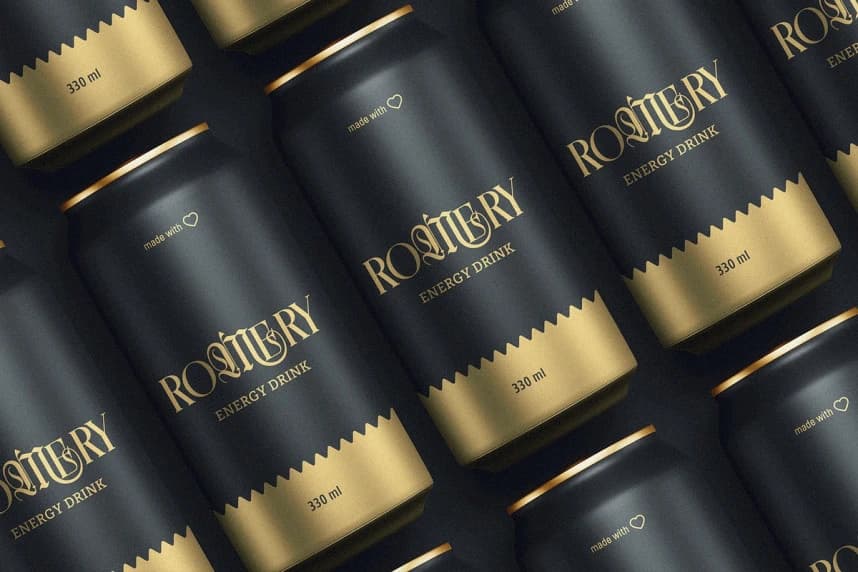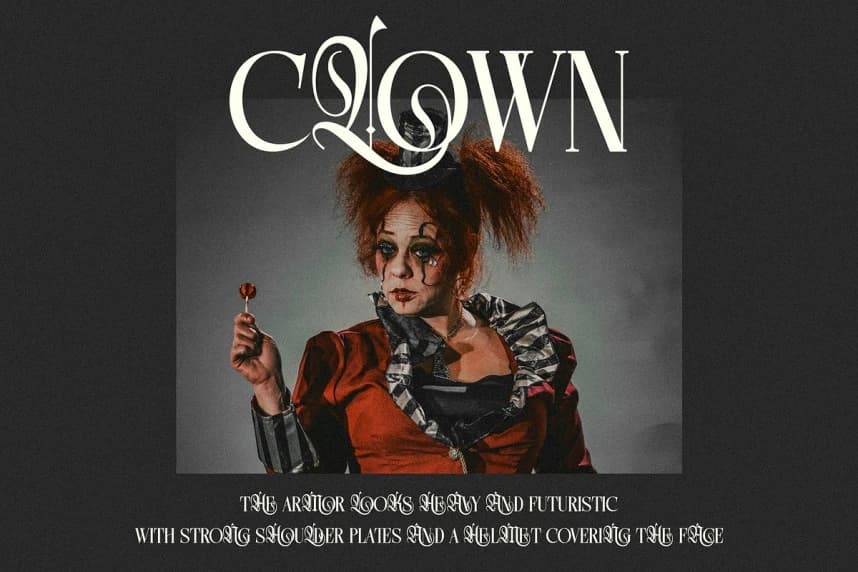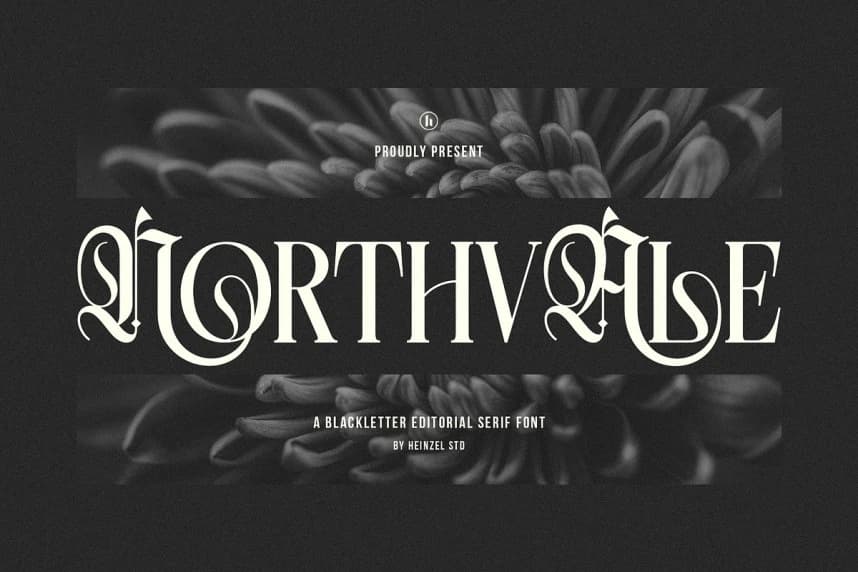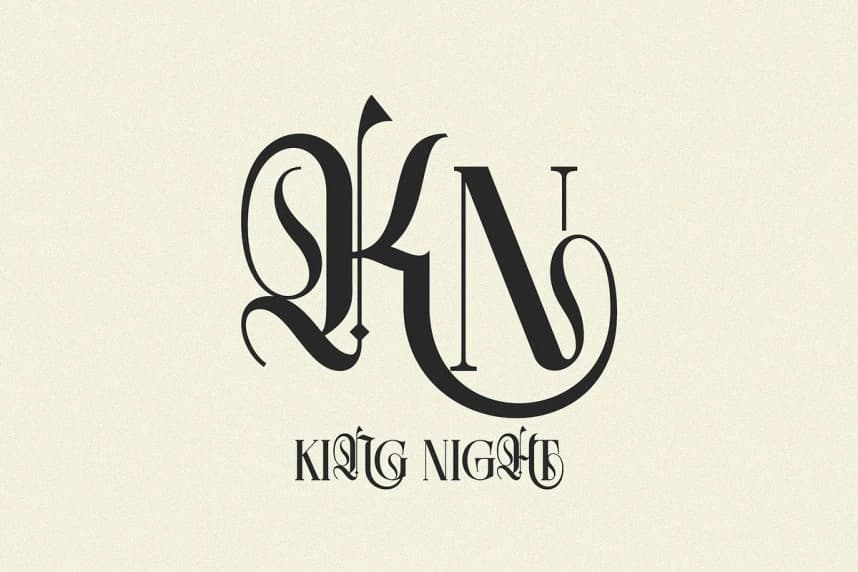
Northvale Font is a blackletter editorial serif font that blends classic Gothic elegance with refined modern sophistication. Designed with dramatic curves, sharp serifs, and ornamental swashes, Northvale creates a powerful visual statement while maintaining readability and balance.